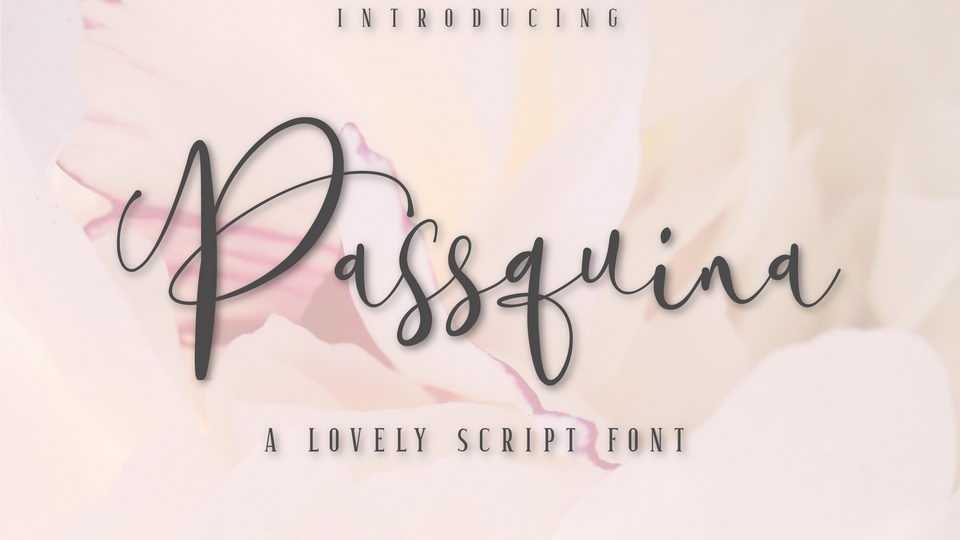
Download Passquina font, a beautiful handwritten script with a contemporary look. Passquina font is suitable for wedding design, greeting cards, social media and more.